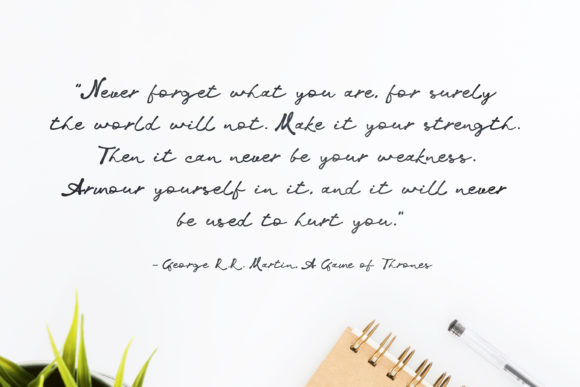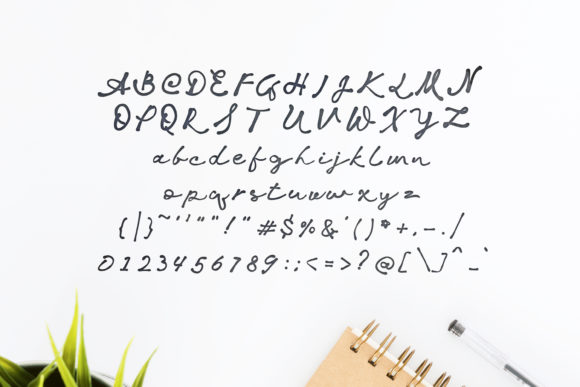
Introduction to Jakotaki Font
Have you ever been working on a creative project, and suddenly, the perfect font pops into your mind, elevating the entire design to a new level? For designers, this moment is pure magic. It’s the spark that sets the project ablaze with creativity and imagination. For me, that moment came when I discovered the Jakotaki Font – a beautiful blend of classic typography and modern flair that adds a unique touch to any design.
The Jakotaki Font is a game-changer for designers, offering a high-quality design resource that can be downloaded for free. With its transparent background and versatile style, it’s the perfect addition to any creative project. Whether you’re working on a logo, brochure, or website, the Jakotaki Font is sure to bring a fresh and exciting element to your design.
Key Features of Jakotaki Font
- Unique, hand-drawn design for creative projects
- High-quality font with transparent background for seamless integration
- Features a unique, artistic style that adds a touch of elegance to any design
- Includes a wide range of characters, including uppercase and lowercase letters, numbers, and punctuation
Honest Review: Jakotaki Font
I recently had the chance to work with the Jakotaki Font, and I must say, it’s a game-changer for any creative project. As a designer, I’m always on the lookout for high-quality design resources that can elevate my work.
- ✨ The Jakotaki Font has a unique and elegant design that makes it perfect for a variety of projects, from wedding invitations to brand identities.
- ✨ It’s incredibly versatile and can be used for both digital and print applications.
- ⚠️ The font doesn’t support a transparent background, which can be a bit limiting for designers who want to create custom graphics or overlays.
Overall, I’m really impressed with the Jakotaki Font. It’s a high-quality design resource that can add a touch of elegance to any creative project. While it may have some limitations, I believe it’s well worth using for personal or small-scale projects.
The Jakotaki Font is a unique and versatile design resource that can add a touch of elegance to any creative project. With its high-quality design and transparent background, it’s perfect for designers and artists looking to elevate their work.
To get the most out of the Jakotaki Font, use it in combination with other design elements, such as graphics and textures. Experiment with different font sizes and styles to create a unique look. You can also use the font to create a consistent brand identity.
The Jakotaki Font is perfect for a variety of creative projects, including logos, business cards, brochures, and website headers. It’s also great for creating custom invitations, social media graphics, and other design elements.